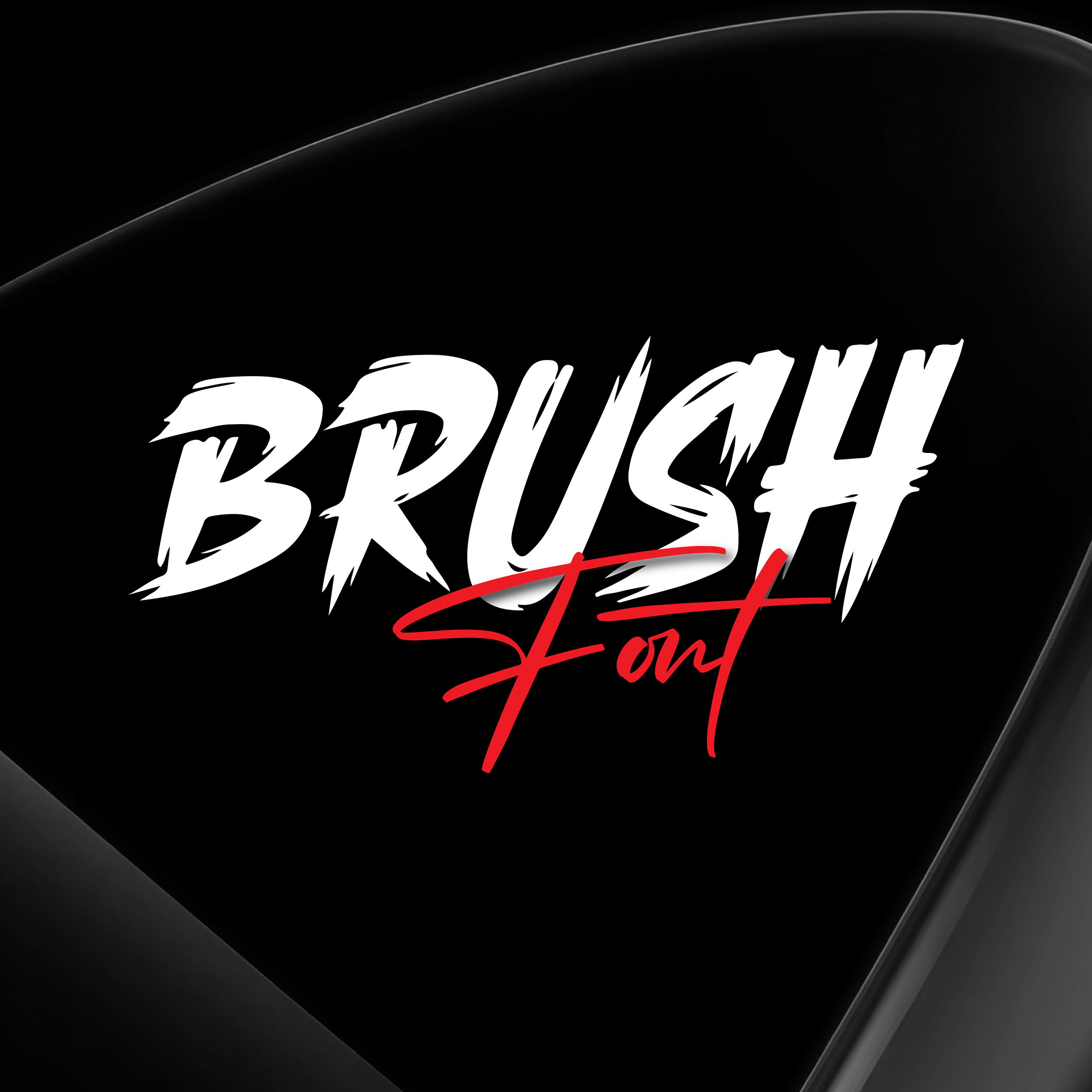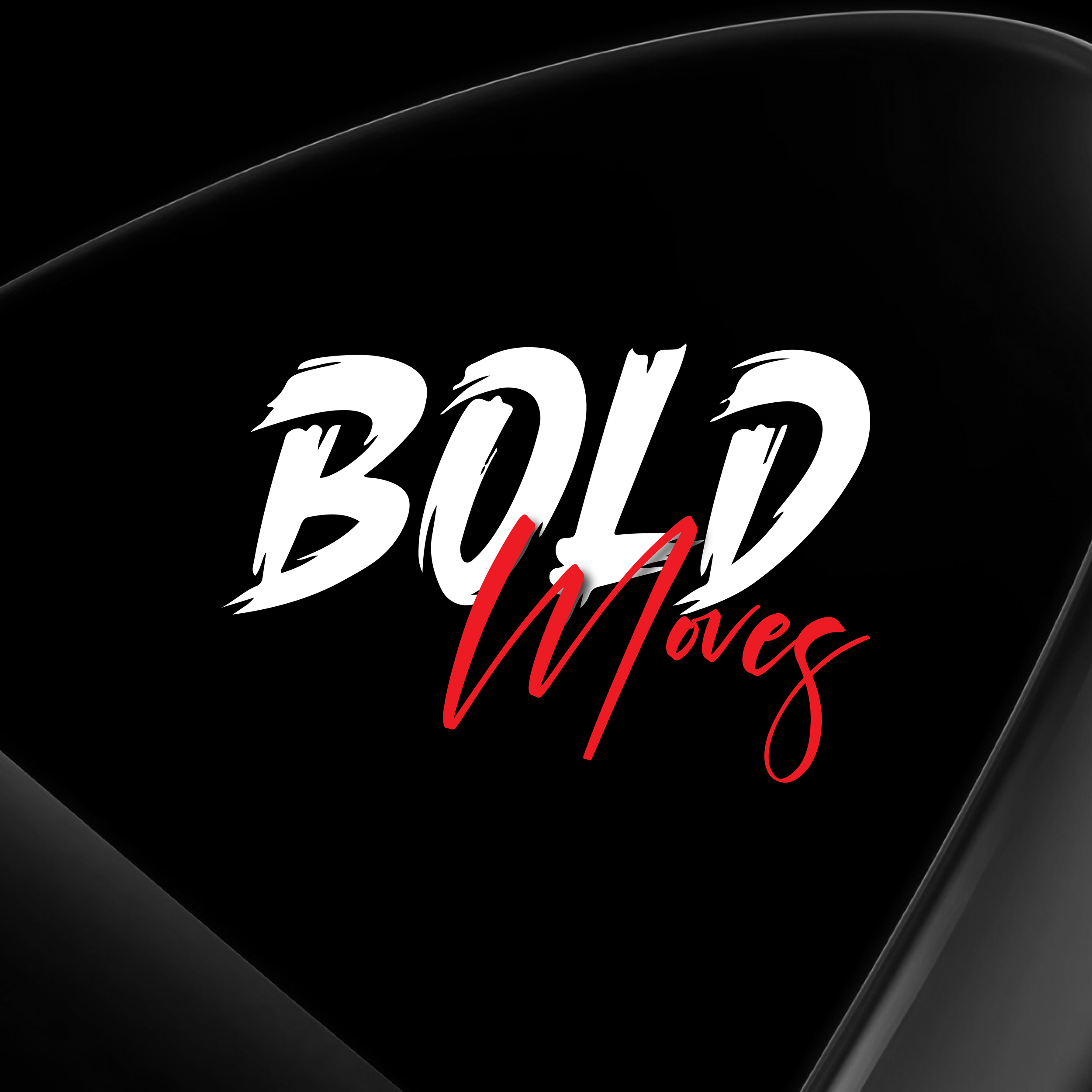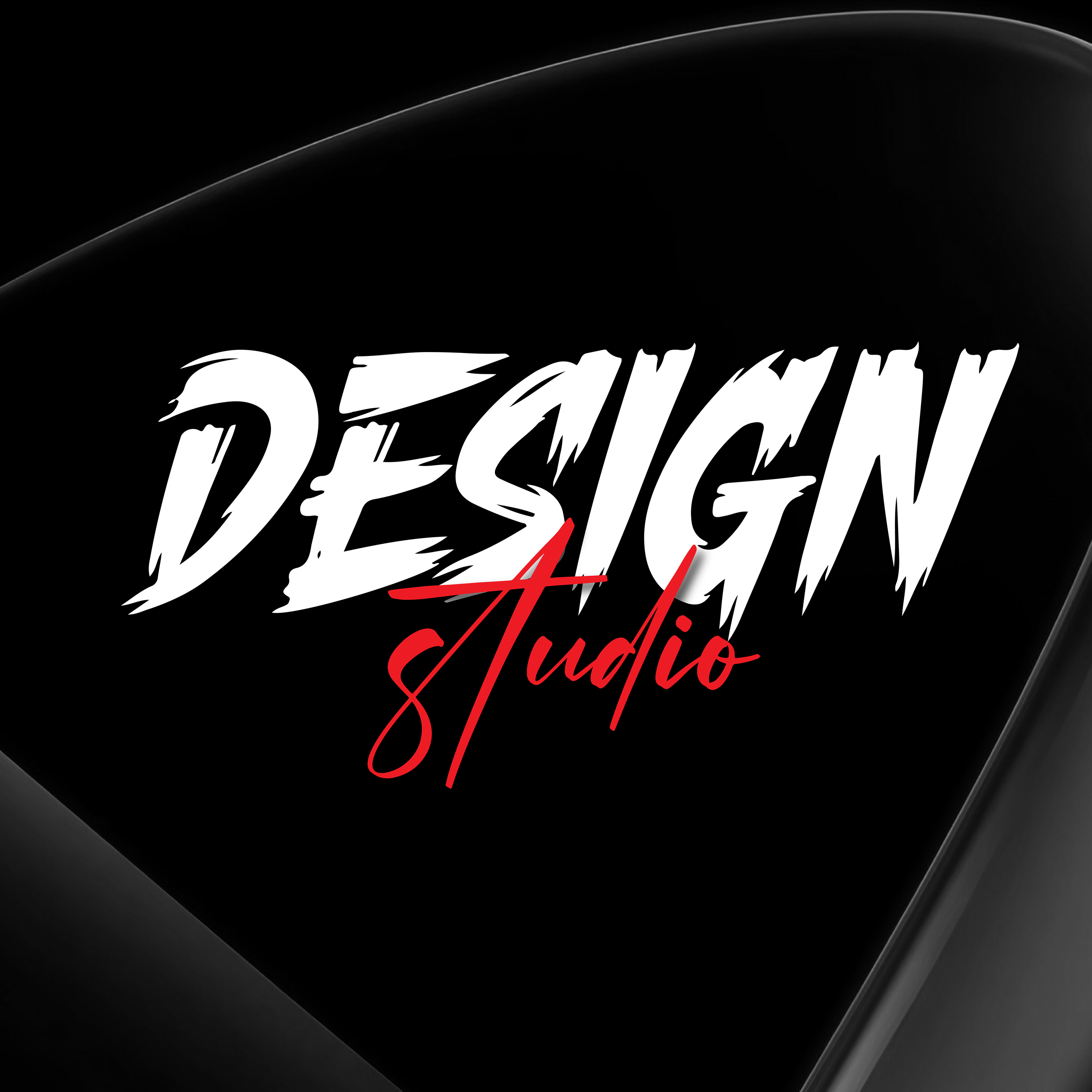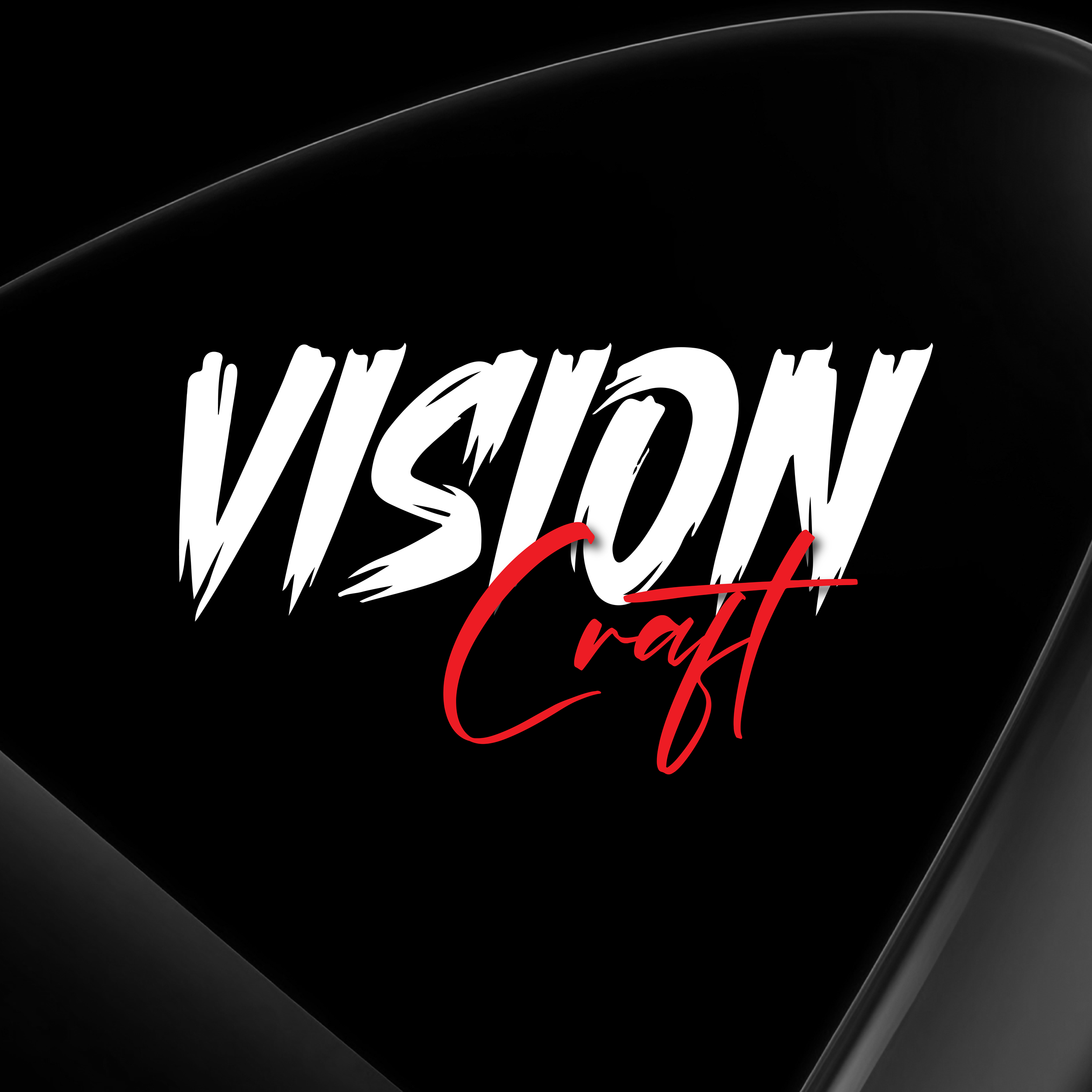
Brush Font Free Download – Stylish Handwritten Typography Font
Download Brush Font free and add a creative handwritten touch to your designs. This stylish brush font is perfect for logo design, branding, posters, social media graphics, invitations, packaging, t-shirt designs, and digital artwork. Featuring natural brush strokes and a modern calligraphy style, this font helps create eye-catching and professional typography.
Why Choose This Brush Font?
- Modern Handwritten Style
- High-Quality Typography
- Perfect for Logos & Branding
- Suitable for Print & Digital Designs
Uses of Brush Font
- Logo Design
- Branding Projects
- Social Media Posts
- Posters & Flyers
- Wedding Invitations
- YouTube Thumbnails
- Packaging Design
- Creative Typography